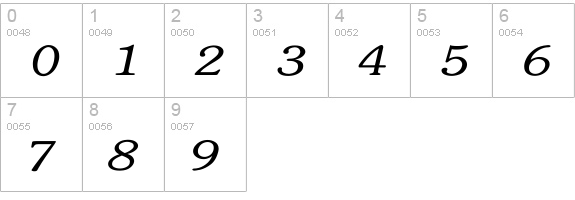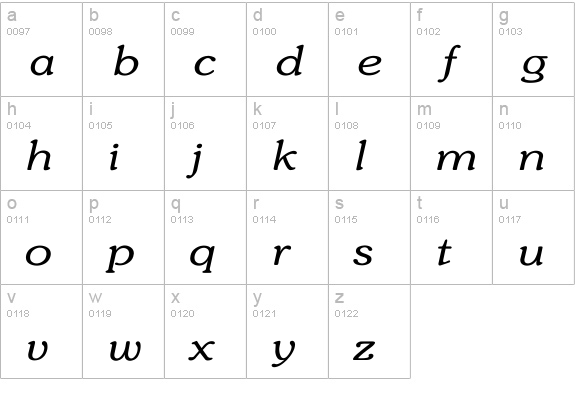
Souvenir-Light-Italic Wd is a refined, elegant, italic variant in the Souvenir typeface family \xE2\x80\x94 well suited to elegant body text, refined sub-headings, and luxury branding.
The Souvenir-Light-Italic Wd font is a beautiful and elegant typeface that exudes charm and sophistication. Its delicate curves and slanted strokes add a touch of grace to any design project. This font is perfect for creating stunning wedding invitations, elegant logos, or stylish editorial layouts. What sets Souvenir-Light-Italic Wd font apart is its versatility and readability. It is easily legible even at smaller sizes, making it an excellent choice for body text in magazines or websites. The italicized style adds a hint of flair and uniqueness, making your content stand out from the rest. One of the best things about Souvenir-Light-Italic Wd font is that it is freely available to download at FontsMarket.com. This means that you can enjoy the beauty and functionality of this font without any cost. Whether you are a professional graphic designer or an aspiring hobbyist, this font is a fantastic addition to your collection. With its free availability, Souvenir-Light-Italic Wd font offers accessibility to everyone, allowing designers of all backgrounds to create stunning visuals without breaking the bank. It is a font that not only enhances the visual appeal of your projects but also saves you money. So, if you are looking for a versatile, elegant, and free font, look no further than Souvenir-Light-Italic Wd font. Download it today at FontsMarket.com and let your creativity soar.